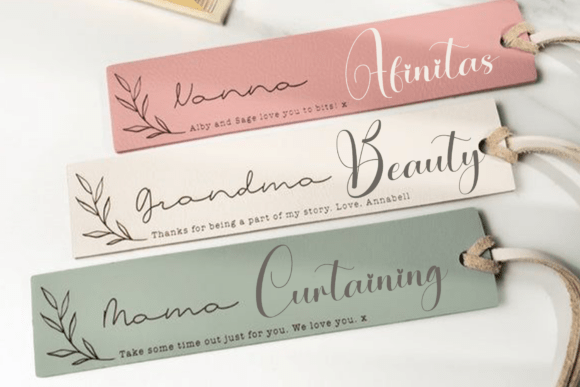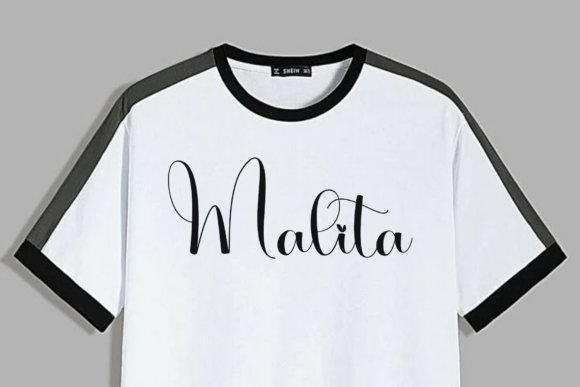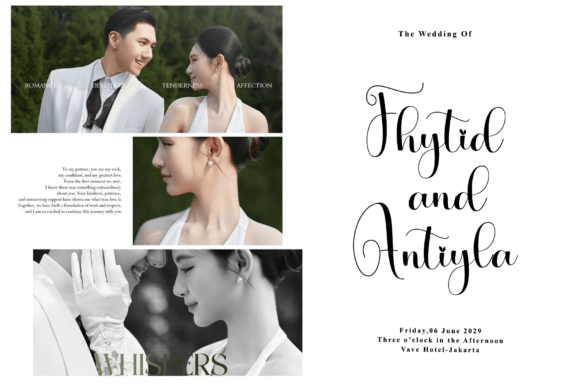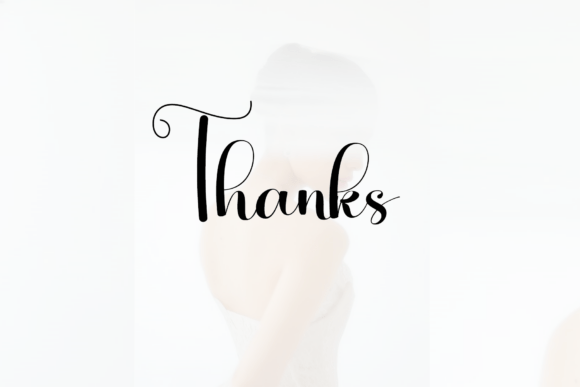
Introducing Angelyne Wedding Font: Elevate Your Designs with Elegance and Sophistication
Are you looking for a font that exudes elegance, sophistication, and a touch of modern style? Look no further than the Angelyne Wedding Font. This beautiful script font is perfect for designers and crafters seeking to add a refined touch to their projects. With its unique blend of modern aesthetics and calligraphic flow, Angelyne Wedding is sure to elevate your designs to the next level.
What Makes Angelyne Wedding Font So Special?
Angelyne Wedding Font is an elegant and rhythmic script font that balances a “modern stylish” aesthetic with a sophisticated calligraphic flow. The typeface features high-contrast visual rhythm, with thick, grounded downstrokes and delicate, wispy connectors that create a sense of customized artistry. This distinctive combination of elements gives the font a refined personality and a natural, hand-penned movement.
Key Features of Angelyne Wedding Font
• High-Contrast Visual Rhythm: The font’s high-contrast visual rhythm creates a sense of drama and elegance, making it perfect for designs that require a touch of sophistication.
• Expansive, Looping Ascenders: The font’s expansive, looping ascenders add a touch of whimsy and playfulness to the text, while also giving it a sense of movement and fluidity.
• Bouncy Baseline: The font’s bouncy baseline creates a sense of natural, hand-penned movement, giving the text a relaxed and effortless feel.
• Thick, Grounded Downstrokes: The font’s thick, grounded downstrokes provide a sense of stability and solidity, balancing out the more delicate elements of the font.
• Delicate, Wispy Connectors: The font’s delicate, wispy connectors add a touch of elegance and sophistication to the text, while also creating a sense of flow and continuity.
Angelyne Wedding Font is a versatile font that can be used for a wide range of design projects. Its elegant and sophisticated aesthetic makes it perfect for:
• Seasonal Winter Branding: The font’s wintry feel and elegant aesthetic make it perfect for seasonal winter branding projects, such as holiday packaging and marketing materials.
• Upscale Event Invitations: The font’s sophisticated and refined personality make it perfect for upscale event invitations, such as wedding invitations, gala invitations, and other formal events.
• Boutique Beauty Packaging: The font’s elegant and luxurious aesthetic make it perfect for boutique beauty packaging, such as high-end skincare and makeup products.
• Professional Signature-Style Watermarks: The font’s refined personality and elegant aesthetic make it perfect for professional signature-style watermarks, adding a touch of sophistication and elegance to any design.
Why Choose Angelyne Wedding Font?
With so many fonts to choose from, why choose Angelyne Wedding Font? Here are just a few reasons why this font stands out from the rest:
• Unique and Distinctive: Angelyne Wedding Font is a unique and distinctive font that will set your designs apart from the rest.
• Elegant and Sophisticated: The font’s elegant and sophisticated aesthetic make it perfect for designs that require a touch of refinement and luxury.
• Versatile: The font’s versatility makes it perfect for a wide range of design projects, from seasonal winter branding to upscale event invitations.
• Easy to Read: Despite its elegant and sophisticated aesthetic, Angelyne Wedding Font is easy to read and understand, making it perfect for designs that require a clear and concise message.
Font Name Angelyne Wedding Font
Author pinkmeca
In conclusion, Angelyne Wedding Font is a beautiful and elegant script font that is perfect for designers and crafters seeking to add a refined touch to their projects. With its unique blend of modern aesthetics and calligraphic flow, this font is sure to elevate your designs to the next level. Whether you’re working on seasonal winter branding, upscale event invitations, boutique beauty packaging, or professional signature-style watermarks, Angelyne Wedding Font is a premier choice that is sure to impress.